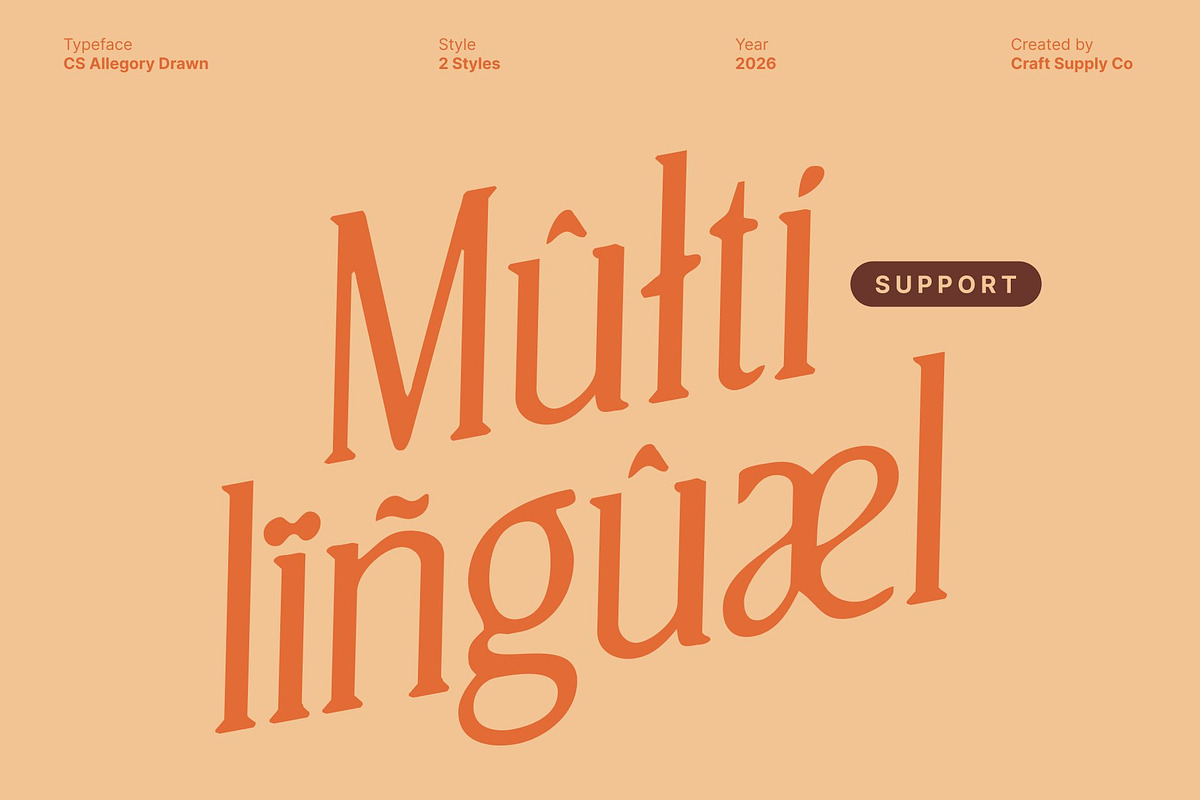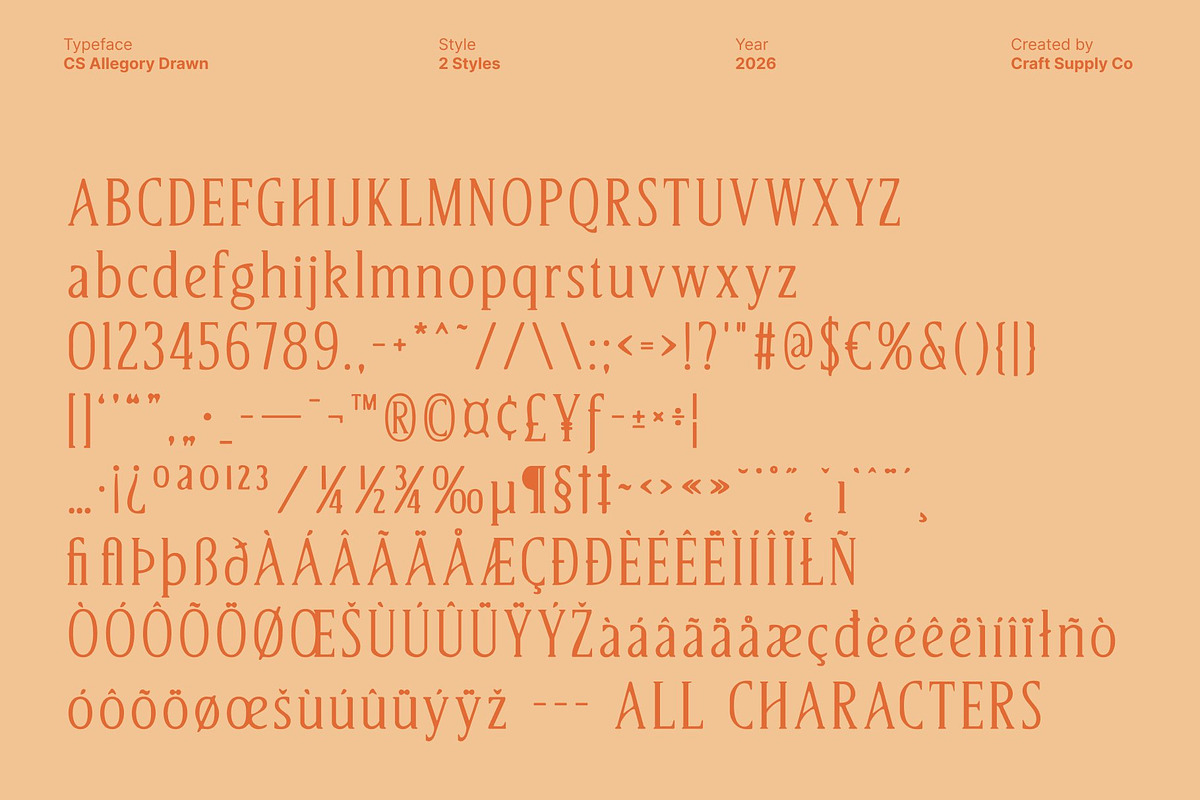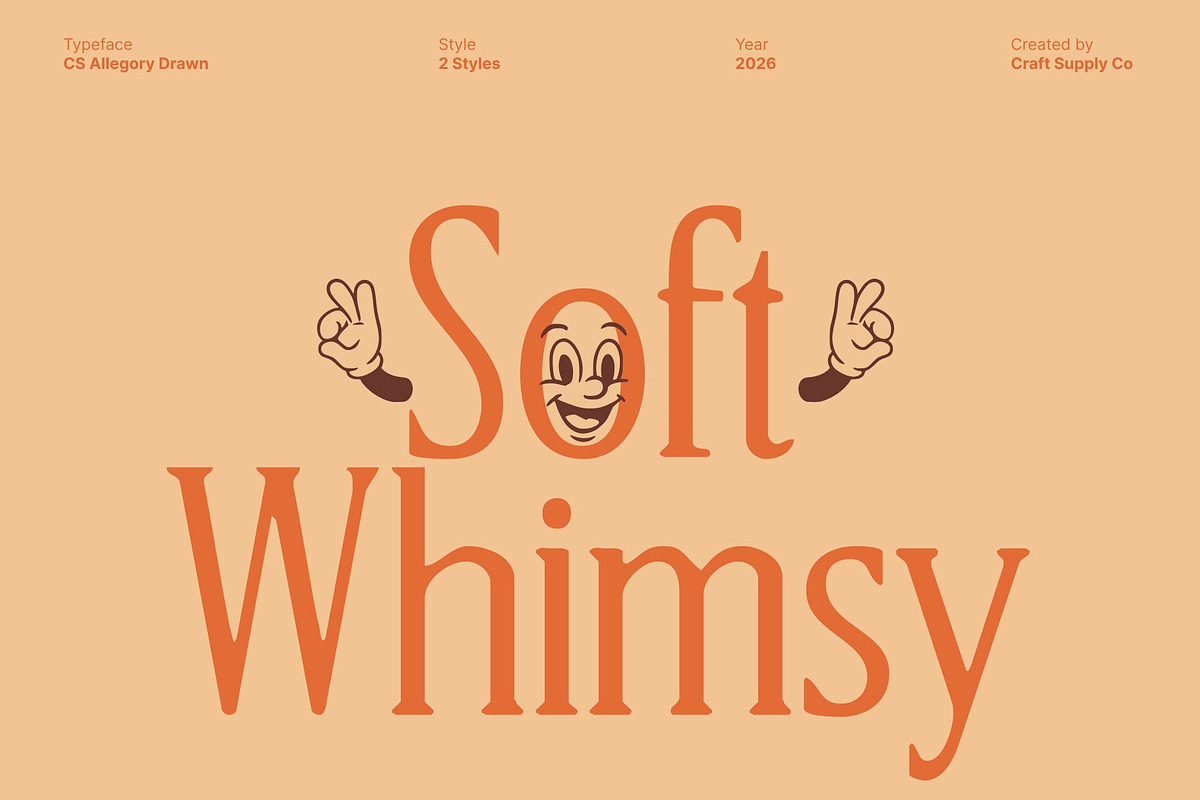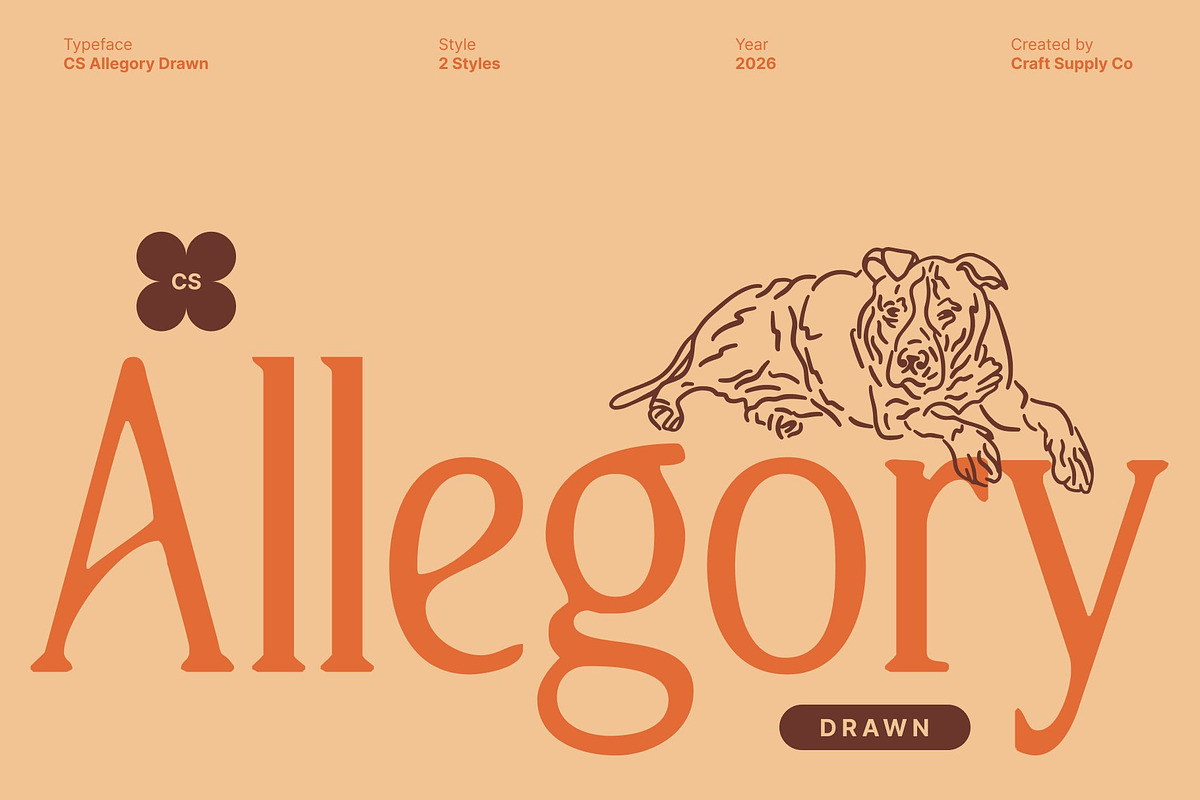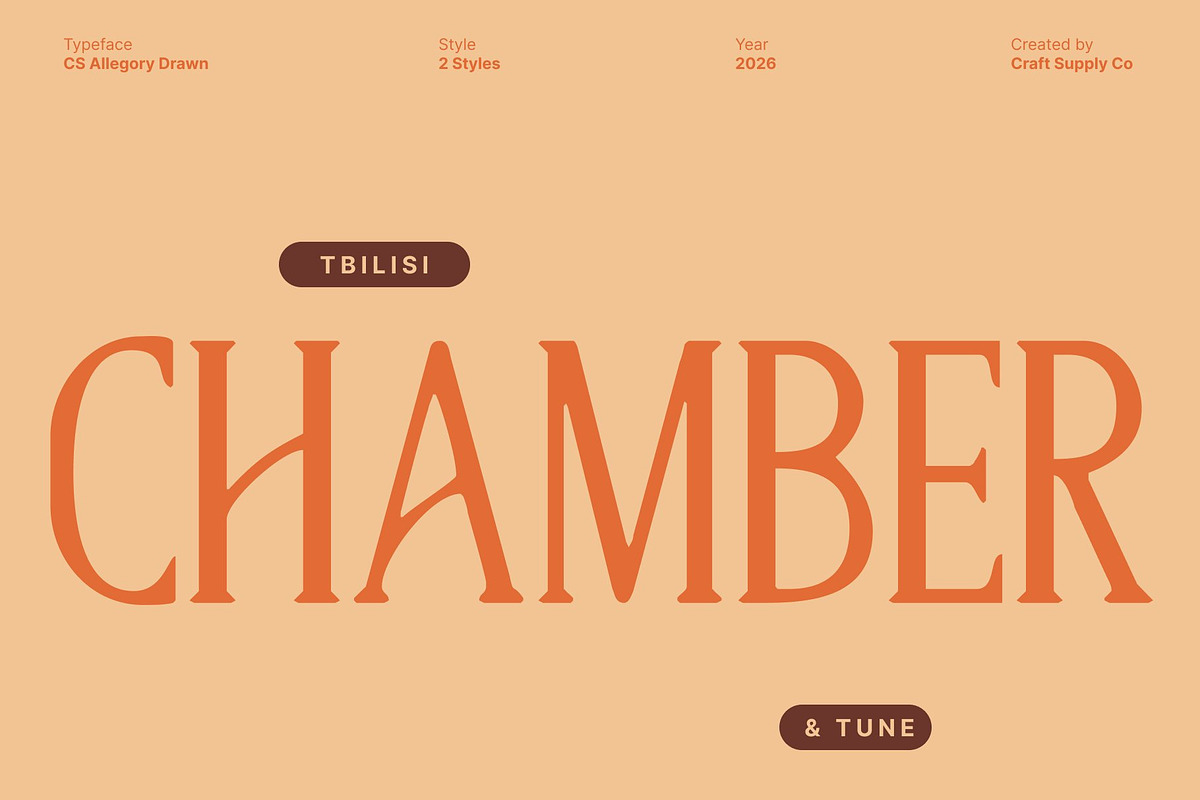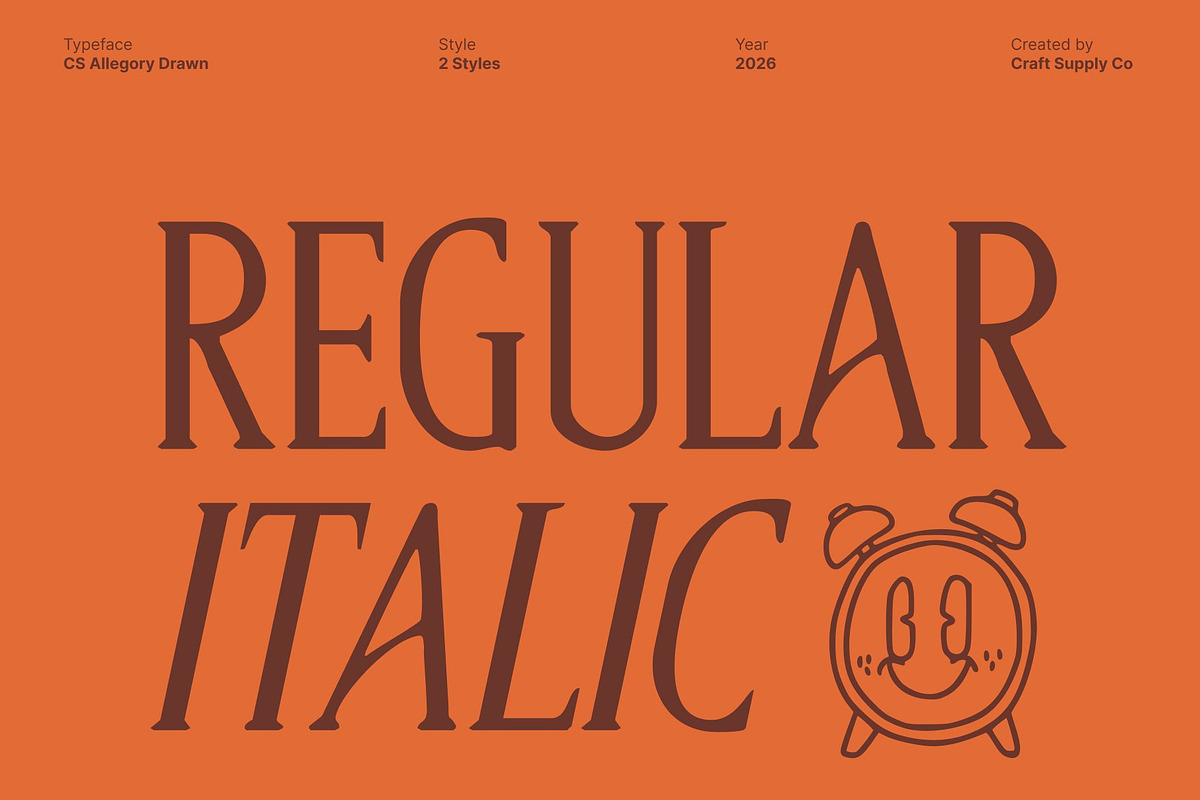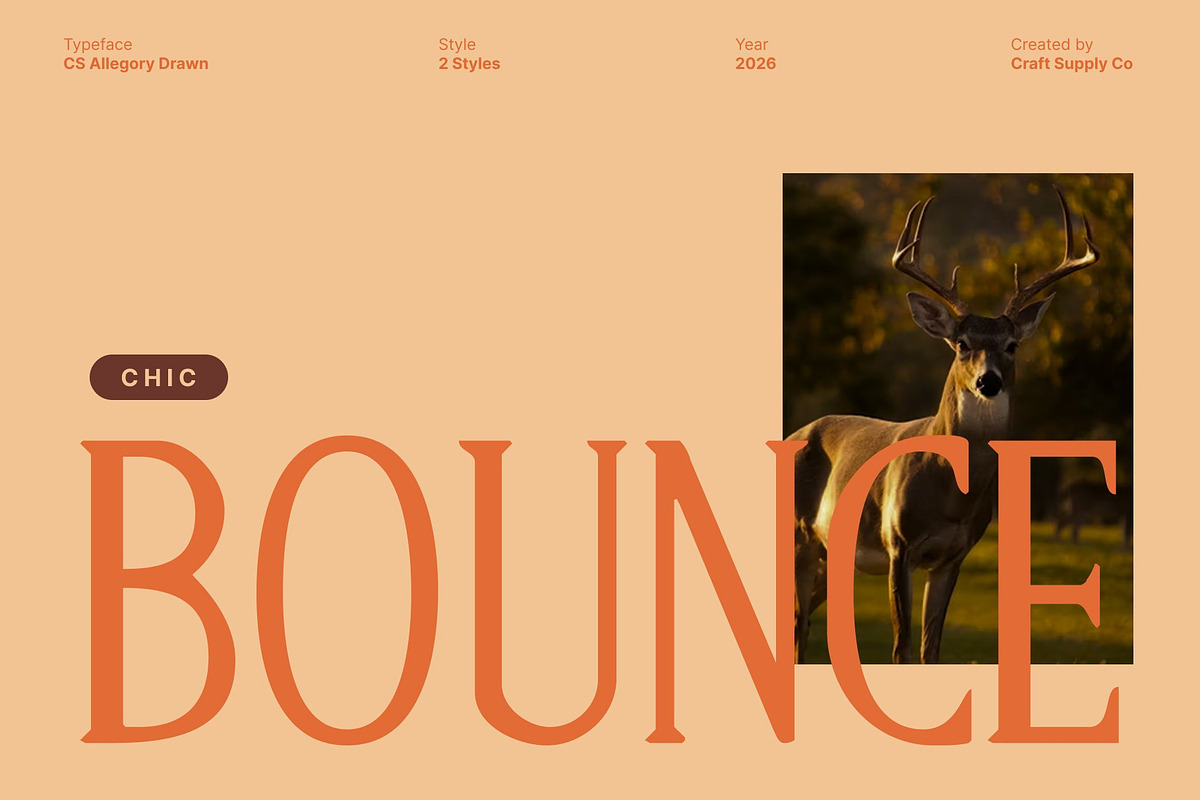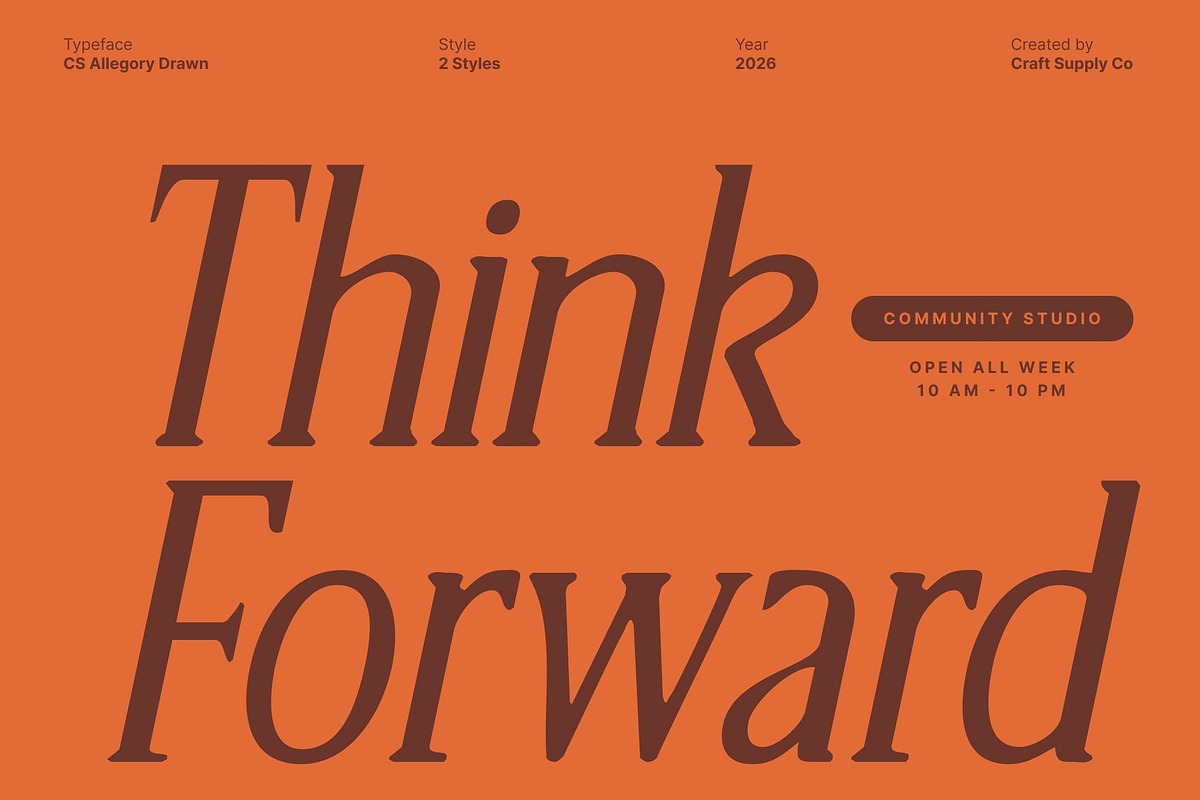
CS Allegory Drawn
CS Allegory Drawn – Timeless Serif Elegance with Hand-Drawn Refinement
Elegant Serif Inspired by Renaissance Craftsmanship This is an elegant serif font rooted in the beauty and discipline of Renaissance typography. Its graceful curves and balanced proportions reflect classical artistry, while the drawn effect introduces a soft, human touch. This blend creates a refined typeface that feels cultured, expressive, and quietly confident.
Refined Curves with Artisanal Character Each letterform is carefully sculpted with smooth curvature and thoughtful detailing. The hand-drawn nuances add gentle variation to the strokes, enhancing the font’s luxurious impression without disturbing its clarity. This subtle imperfection gives the type a sense of craftsmanship, intellect, and timeless sophistication.
A Harmonious Dialogue Between Past and Present This font bridges historical serif traditions and modern typographic sensibility. Its classical structure ensures elegance and readability, while contemporary refinement keeps it relevant for today’s design needs. The drawn texture adds warmth, making the font feel alive rather than rigid.
Ideal for Editorial, Branding, and Luxury Applications Perfect for book design, editorial layouts, high-end branding, and premium packaging, this font delivers a polished, authoritative tone. Whether used for elegant headlines, refined logotypes, or sophisticated text compositions, it communicates heritage, quality, and enduring beauty with every character.
- CS Allegory Drawn Regular
- CS Allegory Drawn Italic